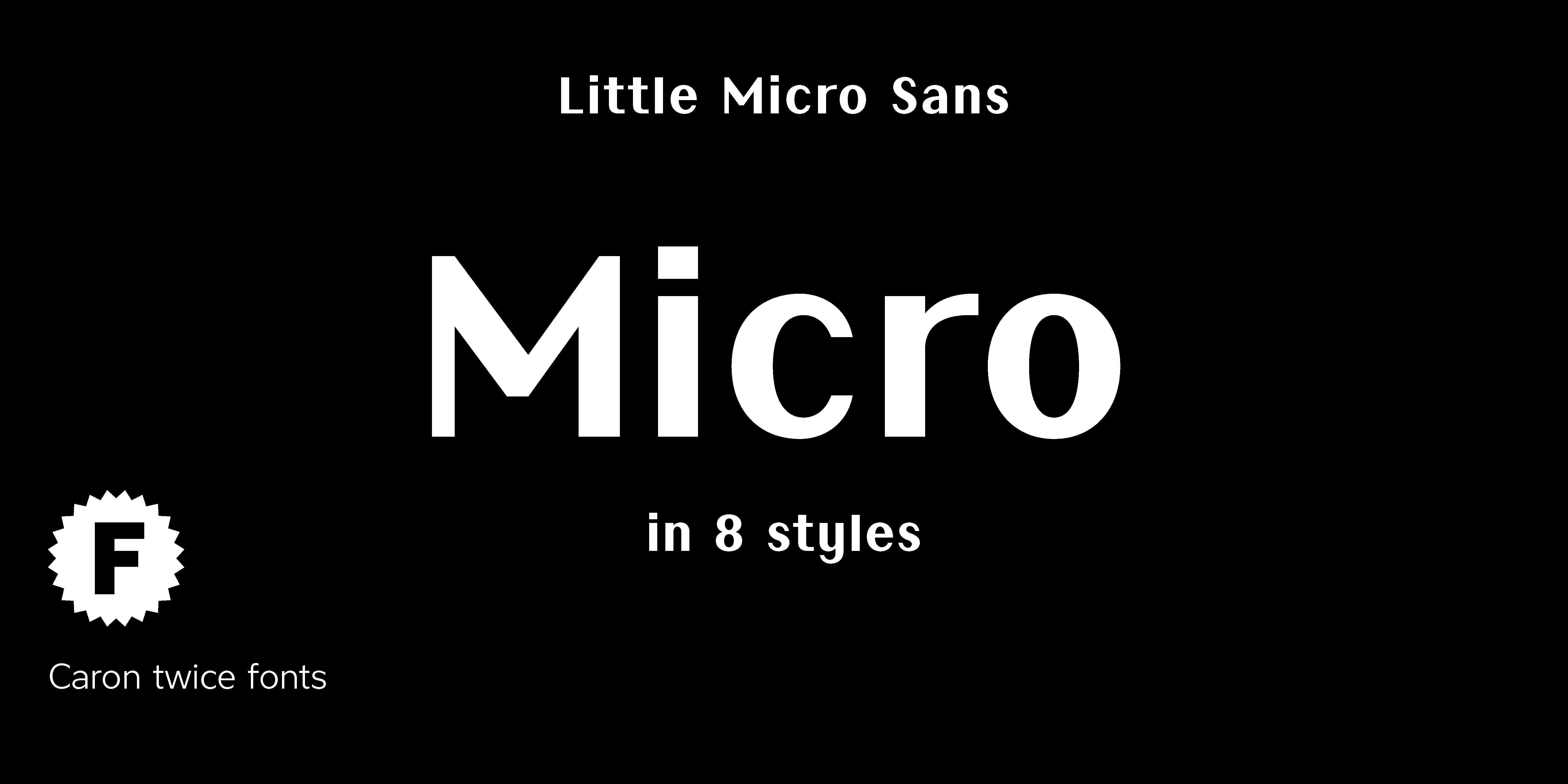
Little Micro Sans Font is perfect for tech startup branding, mobile app interfaces, microchip packaging, electronics labeling, scientific instrument displays, precision engineering logos, nanotechnology graphics, and compact designs that require ultra-precise micro-scale typography and technological clarity.
This font is exciting because it delivers maximum clarity and functionality in minimal space through its precisely engineered letterforms that maintain perfect readability even at microscopic sizes. The compact character design embodies the principles of efficient information density and technological precision, making it ideal for applications where space is premium and clarity is essential.
Little Micro Sans Font belongs to the micro typography font family, featuring compact styling and precision elements that enhance its effectiveness for technical and space-constrained design applications.
Whether you're creating microelectronics branding or precision instrument graphics, Little Micro Sans Font Free Download delivers exceptional legibility and technological sophistication. This typeface represents the pinnacle of space-efficient typography, combining maximum information density with optimal readability for demanding technical applications. The font's precise presence works magnificently in user interfaces, technical documentation, and scientific communications, providing superior clarity while maintaining its micro character that transforms any design with technological precision and establishes information efficiency across all media platforms and technical communications.